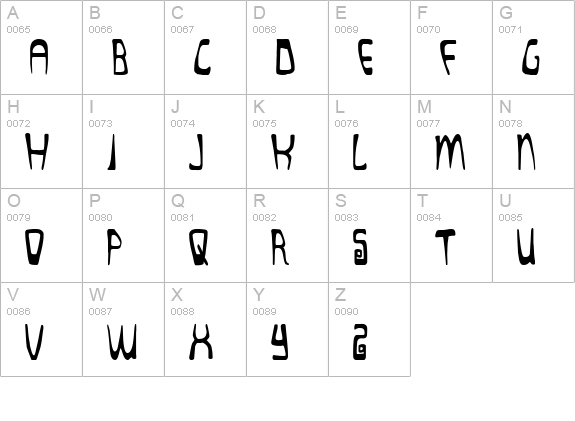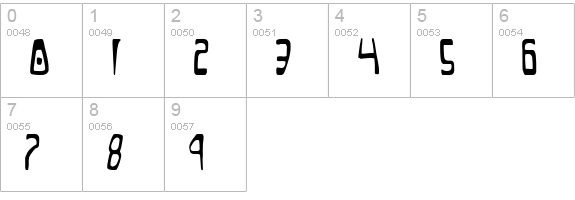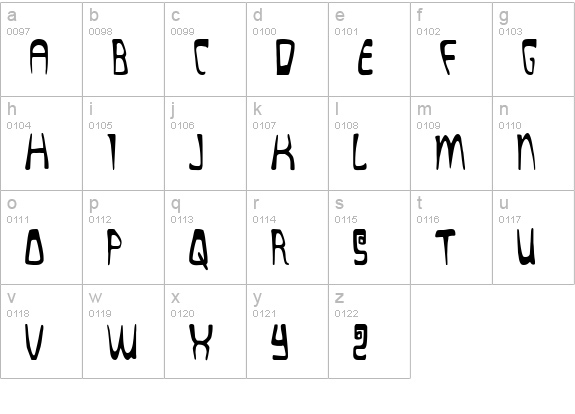
Quatl Condensed Font Details
Quatl Condensed is a distinctive, condensed-width variant in the Quatl typeface family \xE2\x80\x94 well suited to design and typography projects.
Introducing Quatl Condensed, a sleek and modern font that will elevate your designs to new heights. This versatile typeface strikes the perfect balance between elegance and readability, making it an ideal choice for various creative projects. Quatl Condensed exudes a sense of sophistication, with its clean lines and balanced proportions. Its condensed form allows for a more efficient use of space, making it perfect for headlines, titles, and other attention-grabbing elements. Whether you're designing a logo, a website, or a poster, this font will bring a touch of class to your work. But what sets Quatl Condensed apart from the rest is that it is freely available to download at FontsMarket.com. Yes, you heard it right – this high-quality font can be yours without spending a dime. We believe that great design should be accessible to all, and that's why we're making Quatl Condensed available for free. With Quatl Condensed, you no longer have to compromise on quality or budget. This font offers the best of both worlds – a stunning design and a price tag that won't break the bank. So why wait? Head over to FontsMarket.com and download Quatl Condensed today to bring a touch of elegance to your next project.